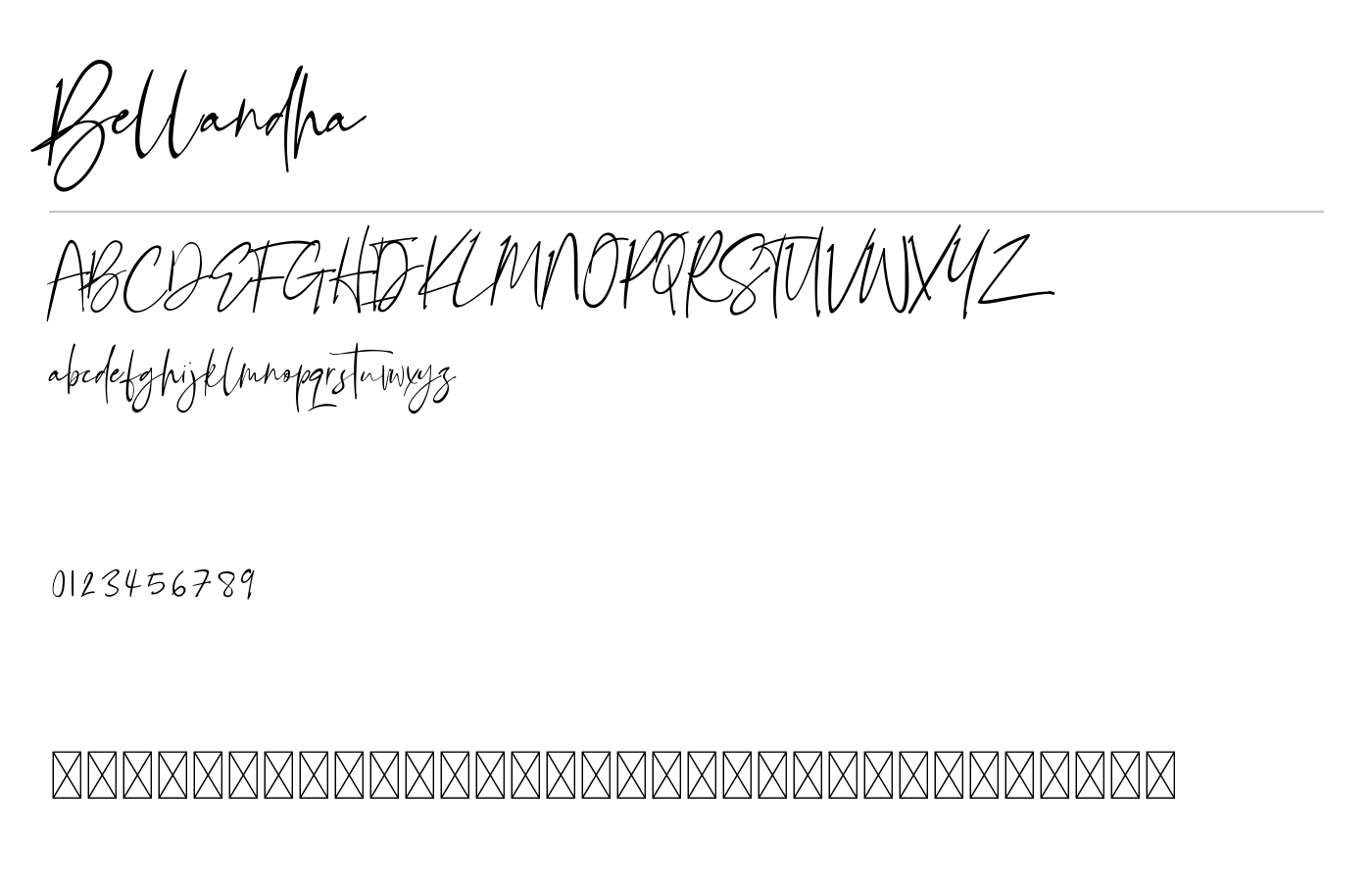
Bellandha is a delicate, hand-drawn script font with a casual and airy feel, characterized by its thin, flowing strokes and expressive letterforms. It captures a natural, personal touch that works beautifully for creative branding, invitations, and headlines where a sense of elegance and individuality is desired. This font shines in projects that need a stylish yet approachable look, adding a handwritten charm without overwhelming the design.
Bellandha Font
About Bellandha Font